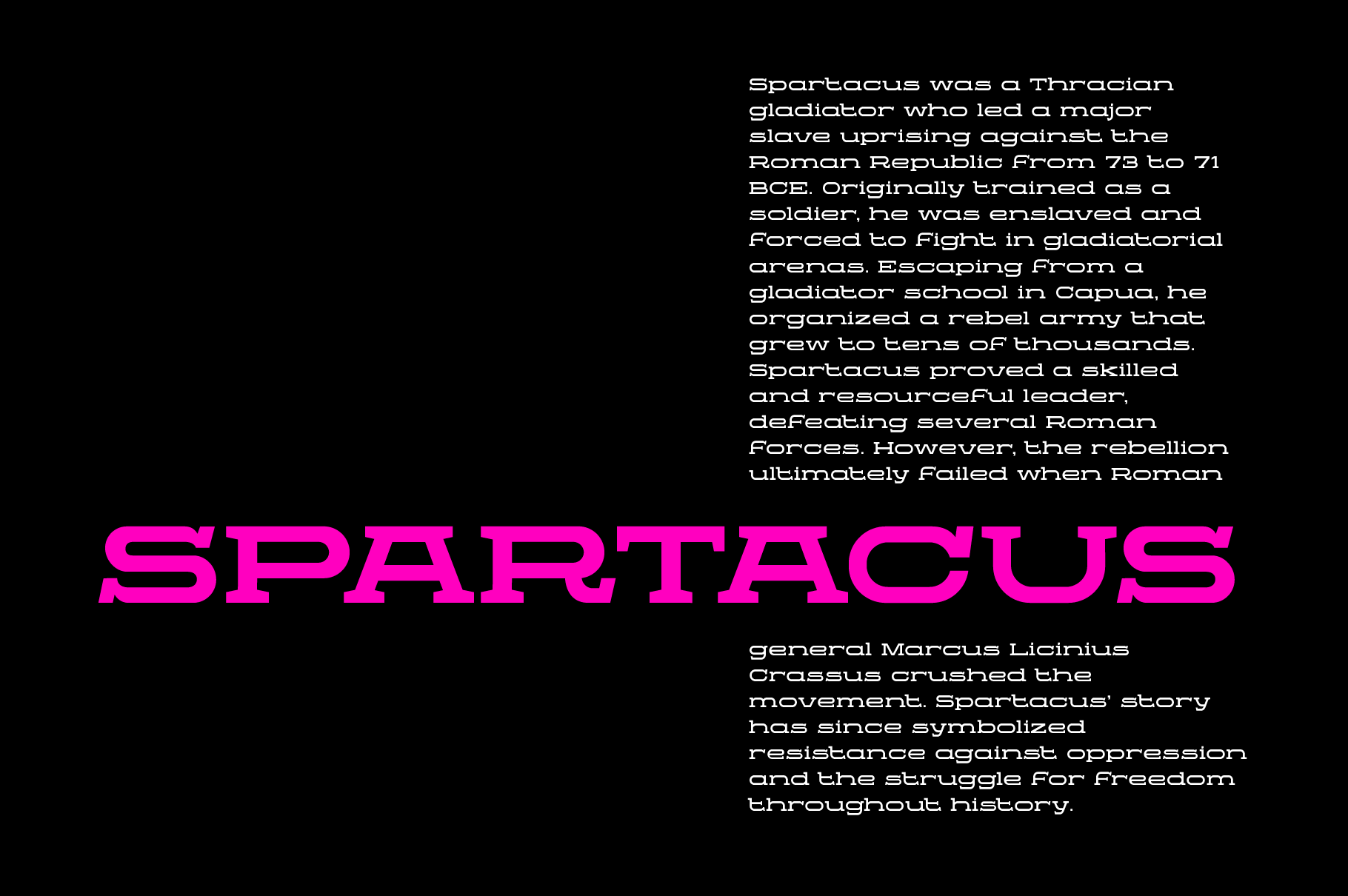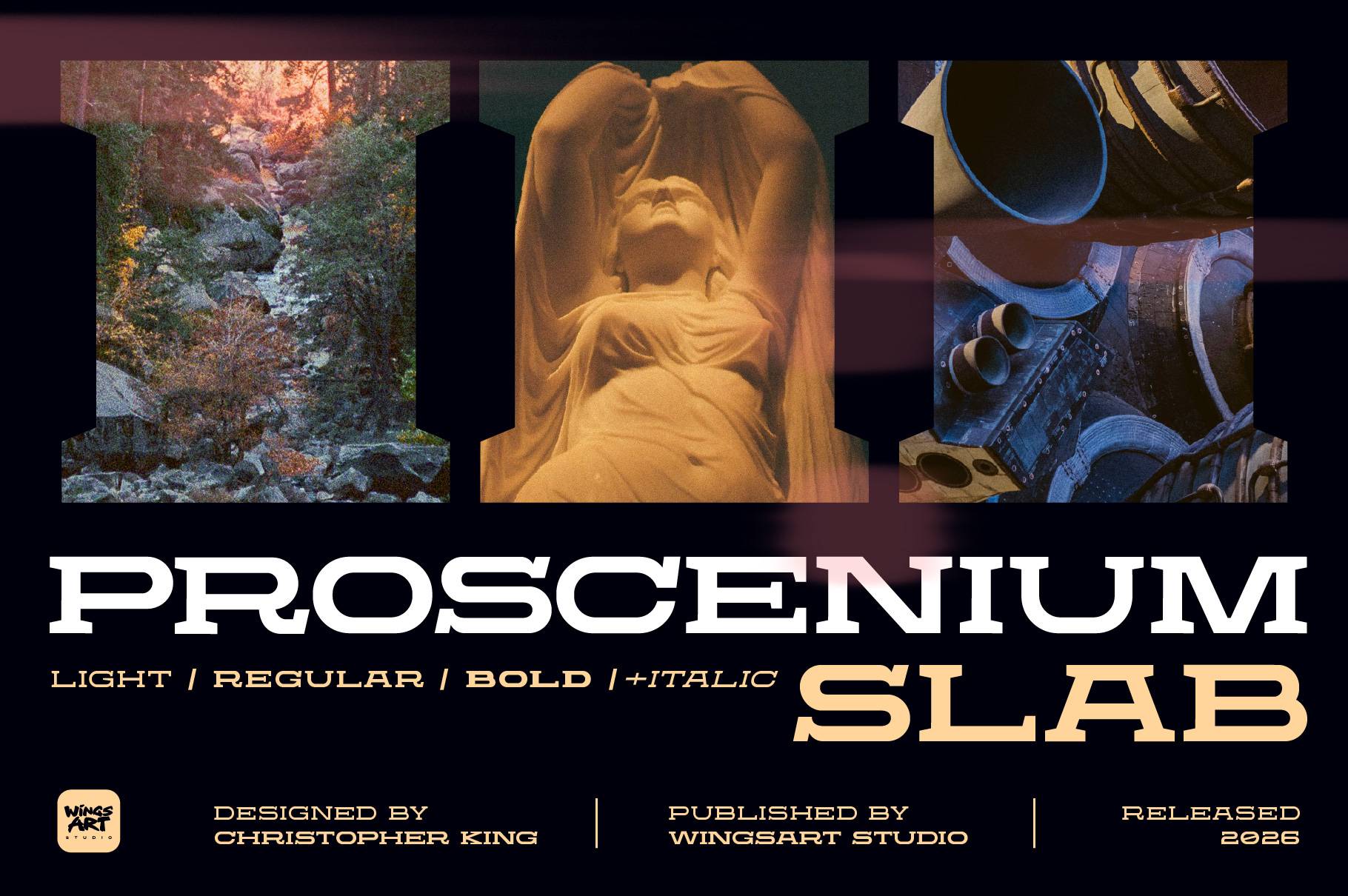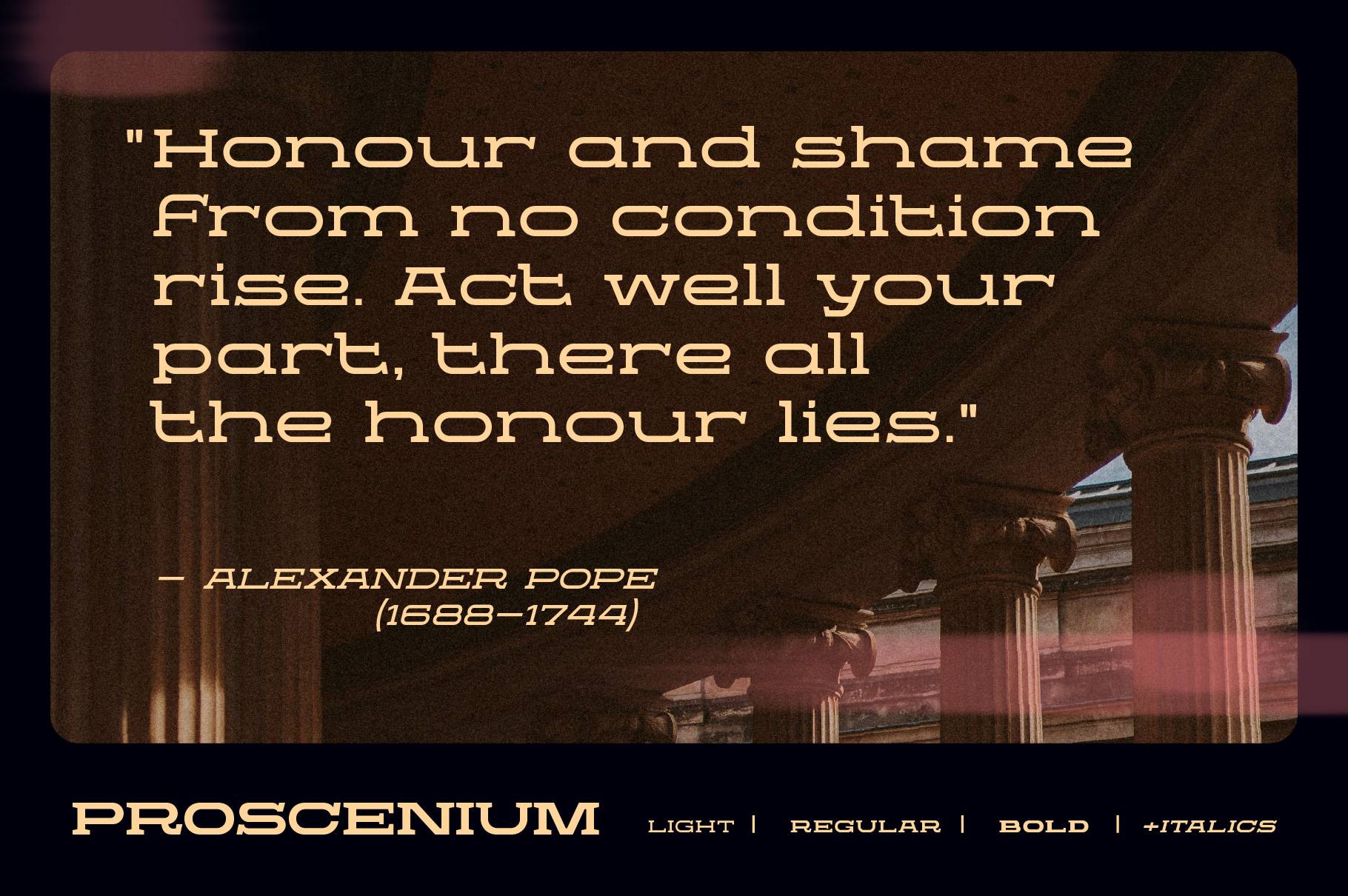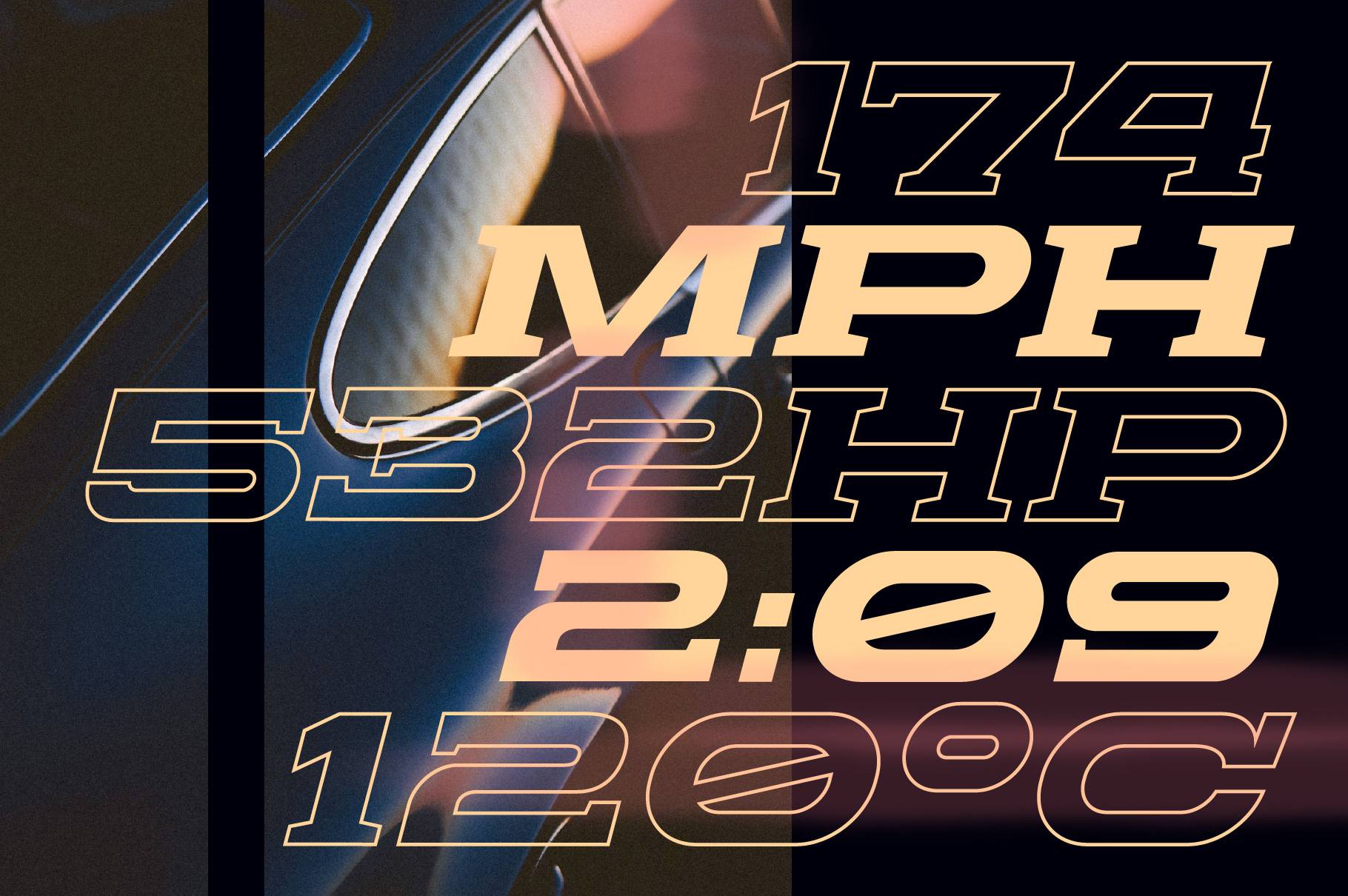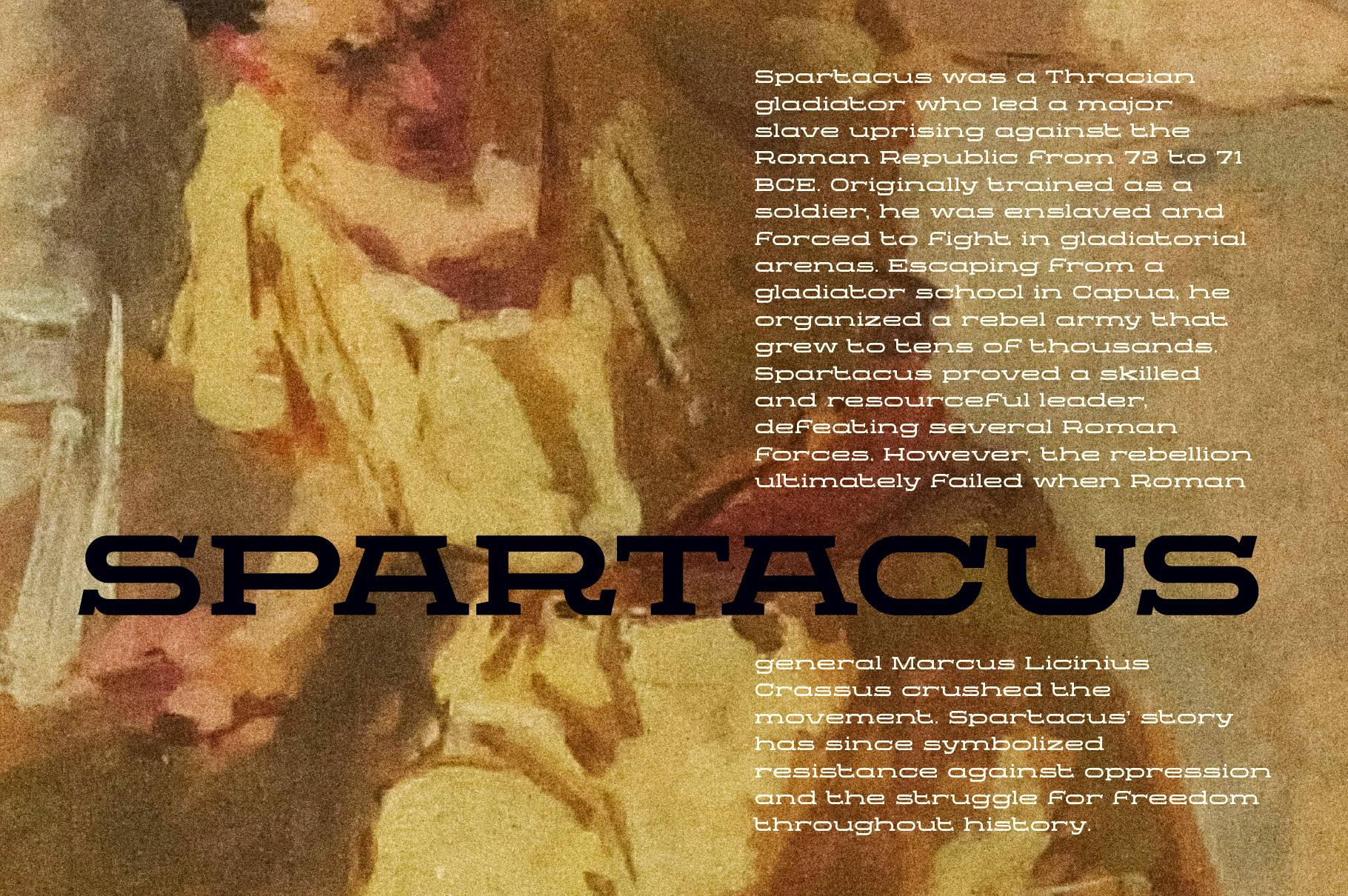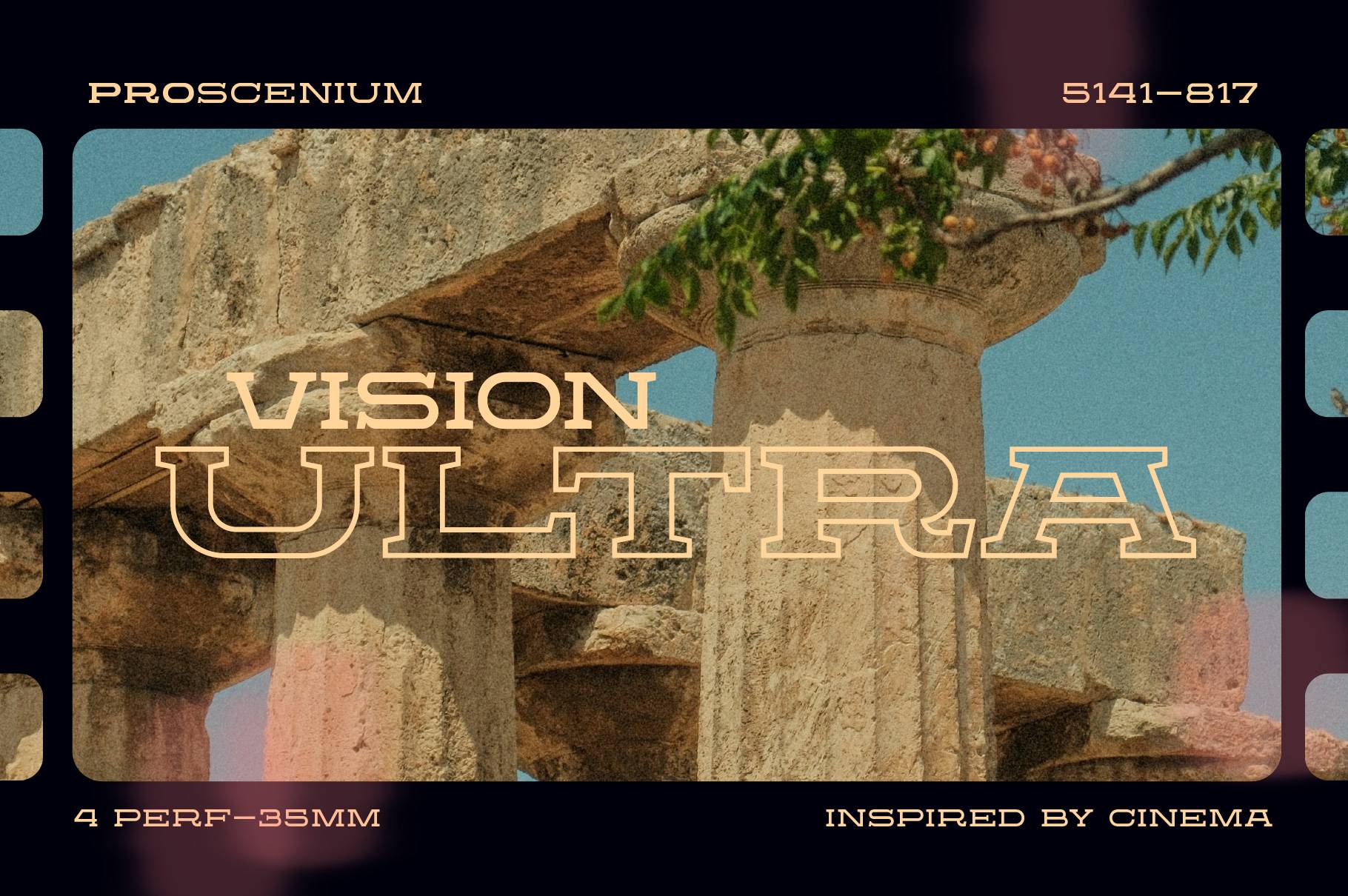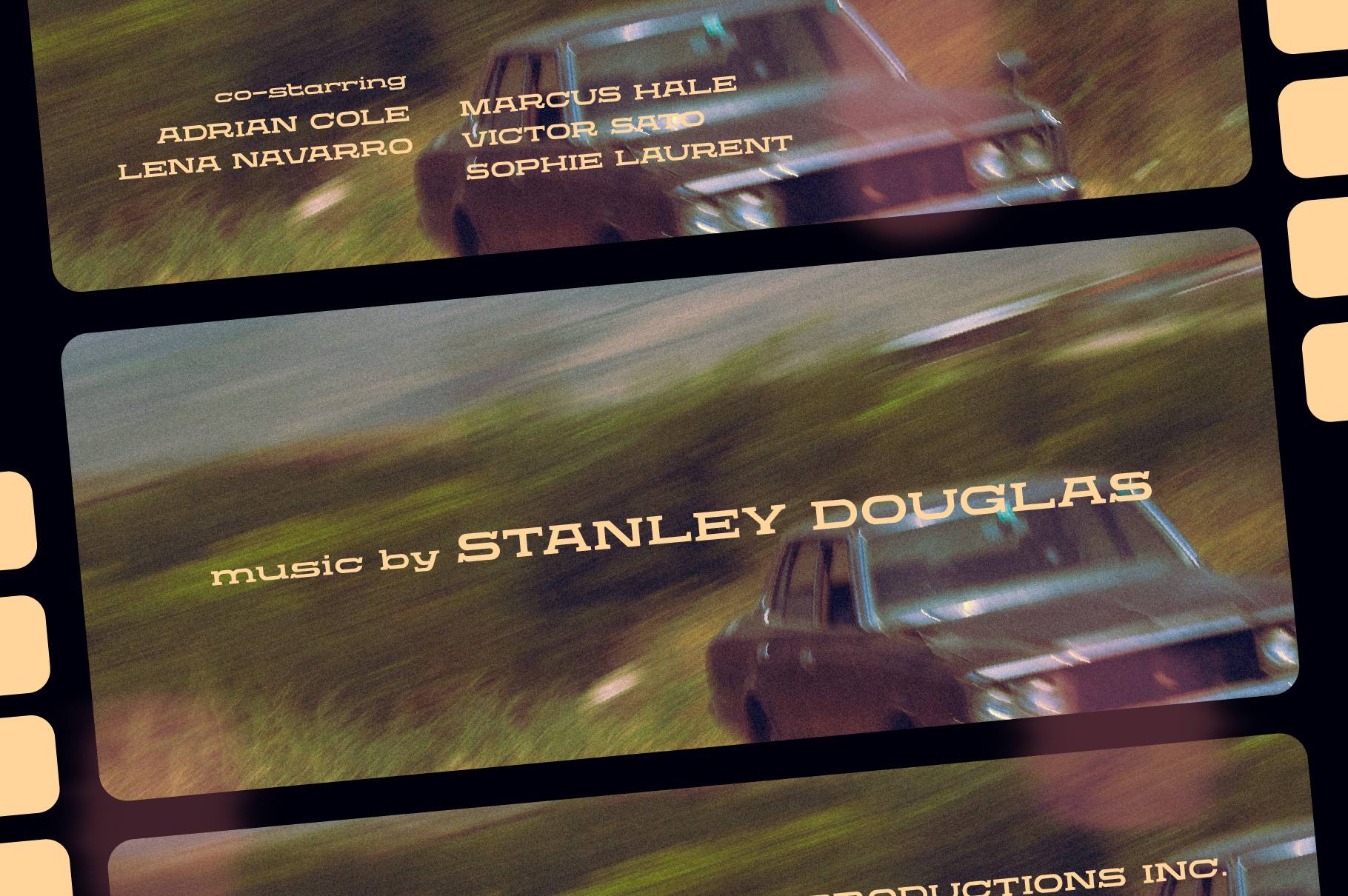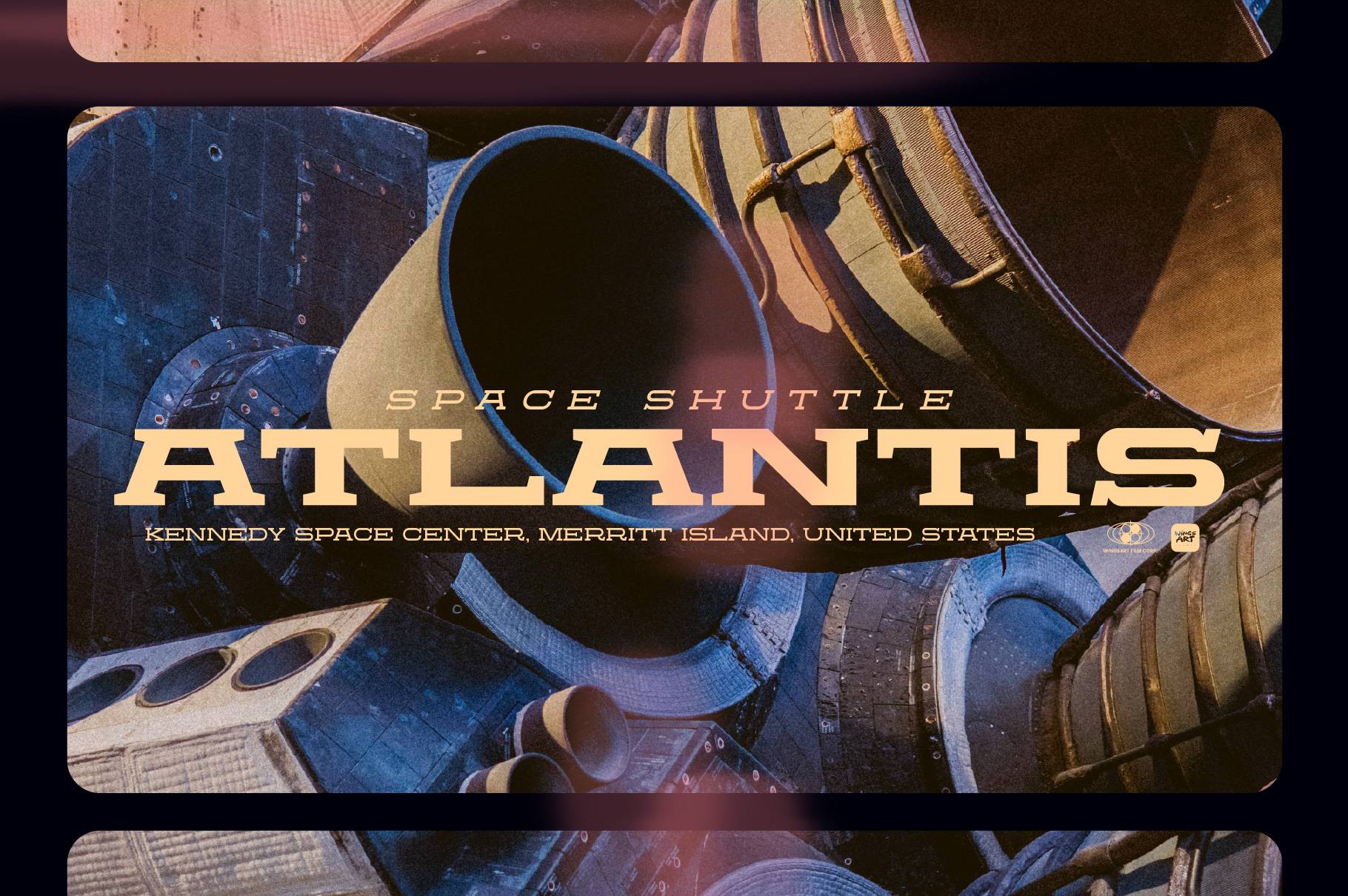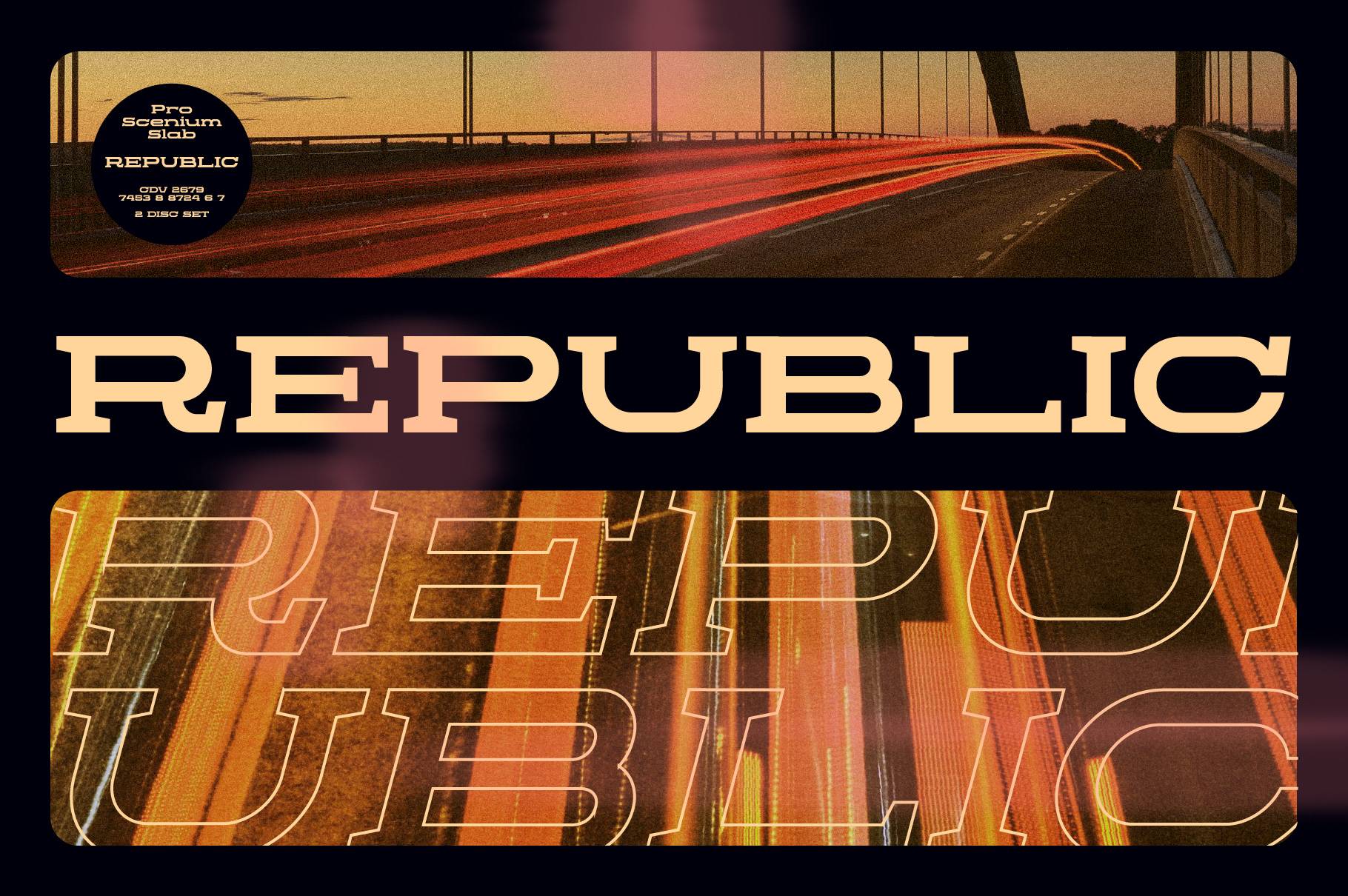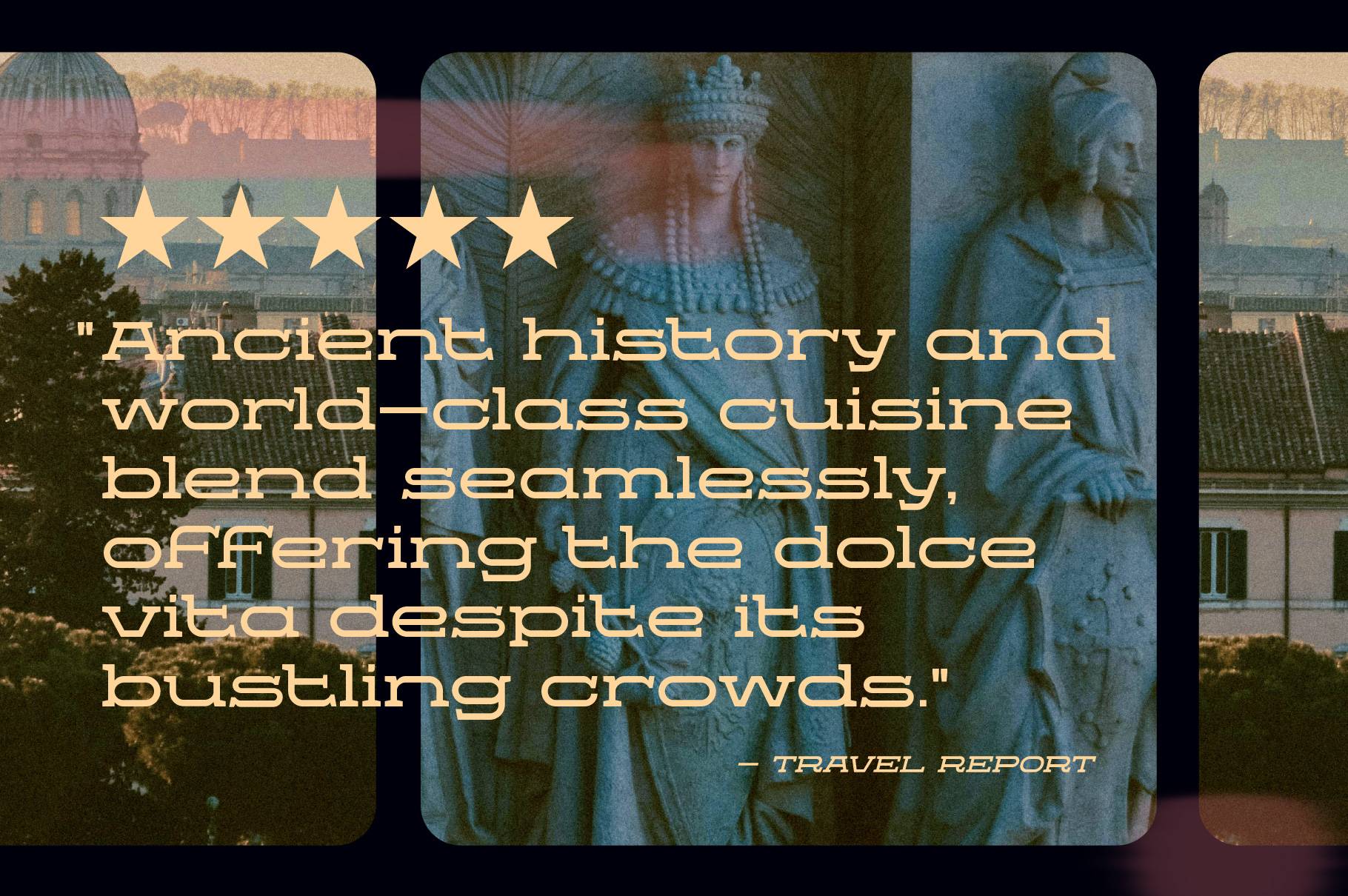
An Ultra-Wide Title Font Designed for Cinema
Proscenium Slab is a powerful slab serif font designed to compliment the widescreen aspect ratio of big screen movie productions.
Inspired by the typography of opening titles and credit sequences, the Proscenium series was created to match letterbox style aspect ratios, typical of 35, 65, or 70mm cinema film formats. It boasts a clean, legible style that projects a mature strength, while versatile enough to sit comfortably among contemporary, period or science-fiction genres.
It’s works equally well across print and digital media, making for impactful headers or quotes for magazine editorials, album art or social media.
It comes in three weights: Light, Regular and Bold, along with italic styles, all including complete uppercase and lowercase alphabets, numerals, punctuation, symbols, and multilingual support.
- Light
- Regular
- Bold
- Italic versions for all styles